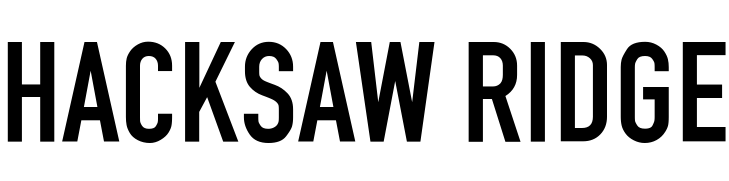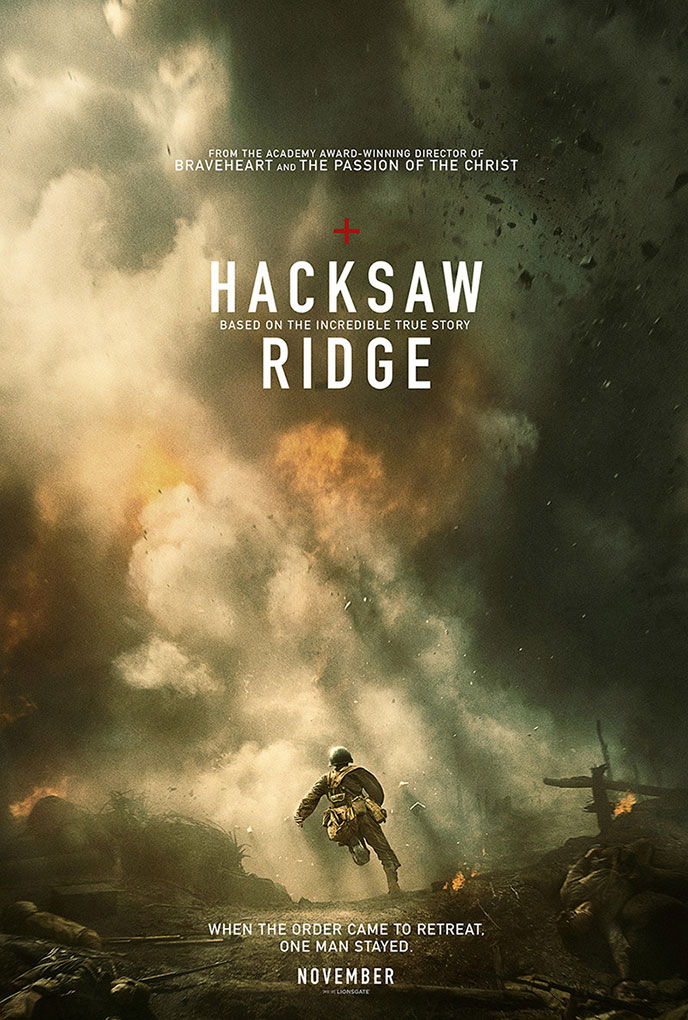
Hacksaw Ridge Font
Fonts in UseHacksaw Ridge is a war film based on the true story of Desmond Doss, a conscientious objector who served as a medic during World War II and saved 75 lives without carrying a weapon. It showcases his bravery and unwavering faith amidst the brutal Battle of Okinawa.
The film title in the "Hacksaw Ridge" poster uses a font similar to DIN 1451 Engschrift, a widely-used sans-serif typeface known for its legibility and easy-to-write forms.